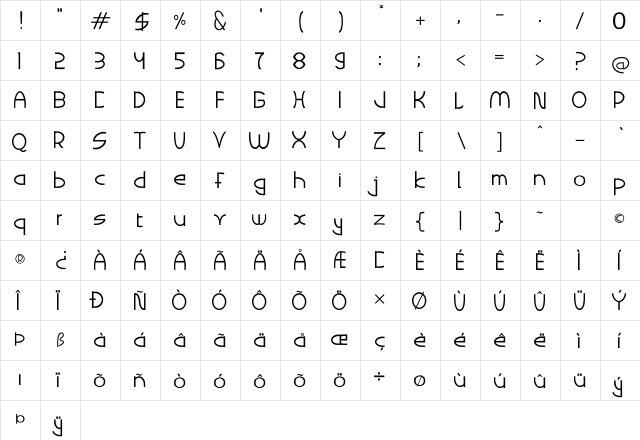
SIGAHARU Regular
Design Context for SIGAHARU Typeface
SIGAHARU offers clean, dependable letterforms without strong stylistic allegiance, making it a practical choice for designers who need flexibility.